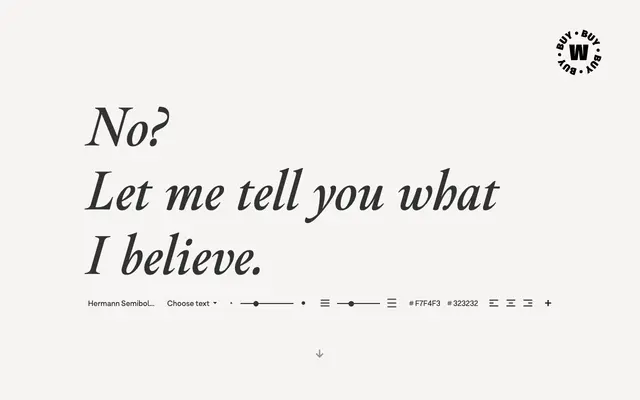
Hermann
A humanist text serif with swashes and discretionary ligatures, designed around the literary and conceptual worlds of Hermann Hesse and Aldous Huxley.
Developed by Diego Aravena and Salvador Rodriguez, Hermann takes Sabon and Garamond as structural references and weaves in concepts of duality and surrealism drawn from 20th-century novel culture. The family spans ten styles across five weights from Regular to Heavy, each with a matching italic, and the character set includes full sets of capital discretionary ligatures, swashes from A to Z, and final letter forms that give the typeface range beyond the text column. Extended German proofing supports the Central European language coverage implied by its literary namesake.
Inspired by Sabon and Garamond, Hermann draws on 20th-century book typography traditions with humanist proportions, swashes and discretionary ligatures that bridge text and display use.